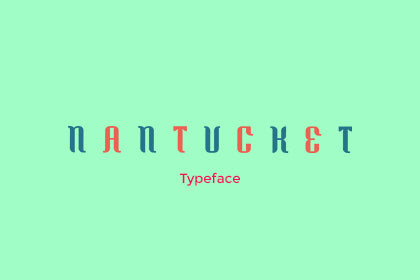
Take a look at this adorable free nantucket typeface. Free Design Resources has created this amazing and beautiful free typeface. This is absolutely beautiful font so you can easily make world-class designs.